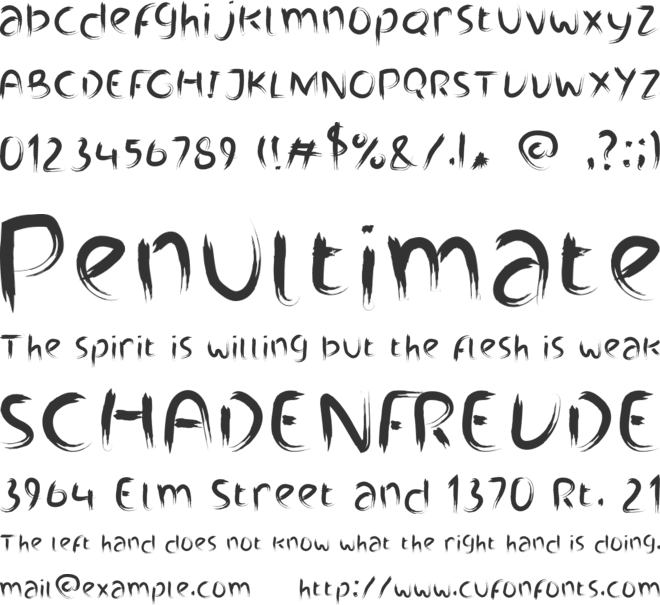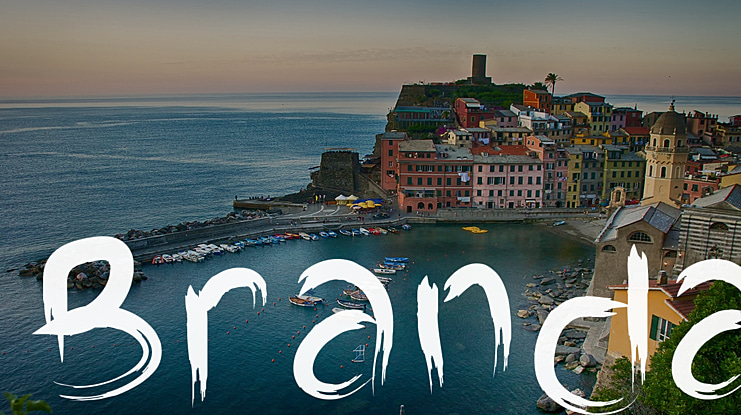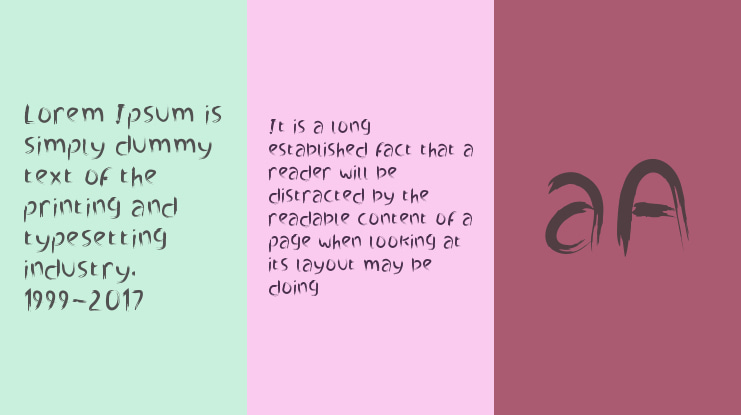
Branda Font
Branda is dry brush script font created use special and realistic brush style. You’ll get unique and free brush font style that make your project more awesome. It comes with upper case, lower case, numeric and punctuation. Time to make your artworks more realistic!